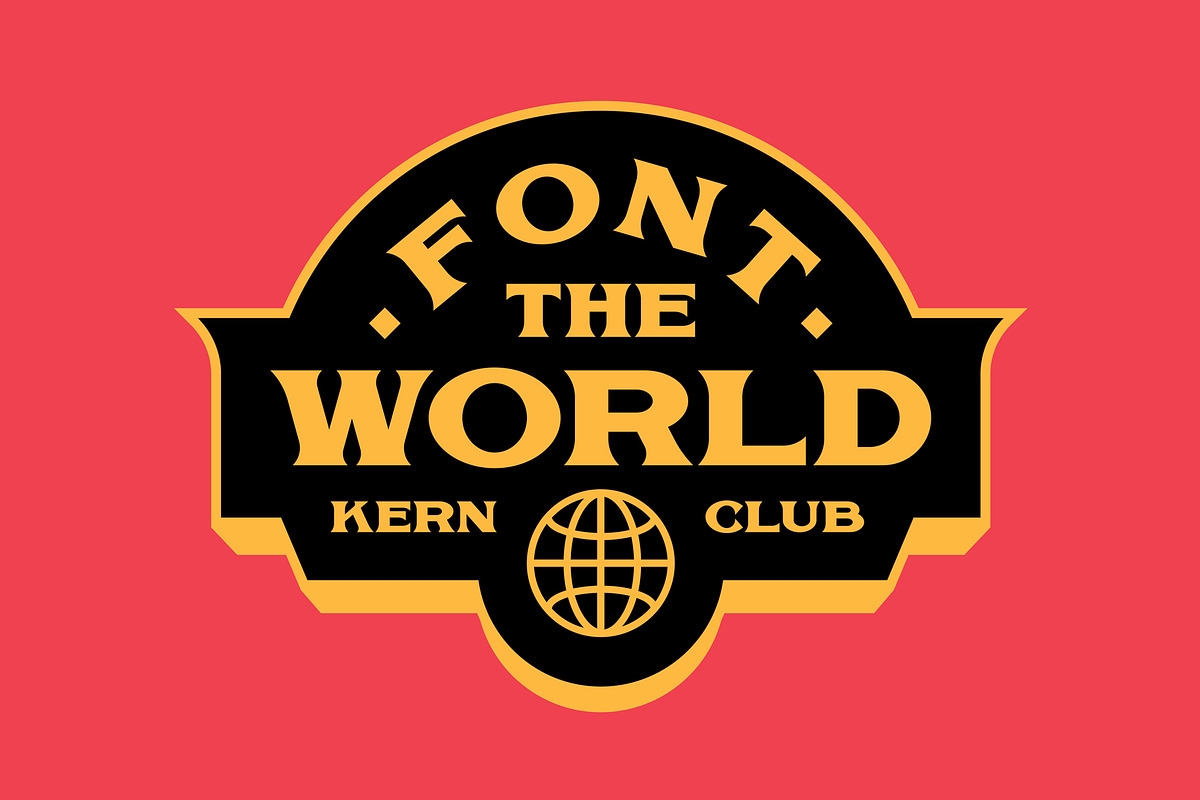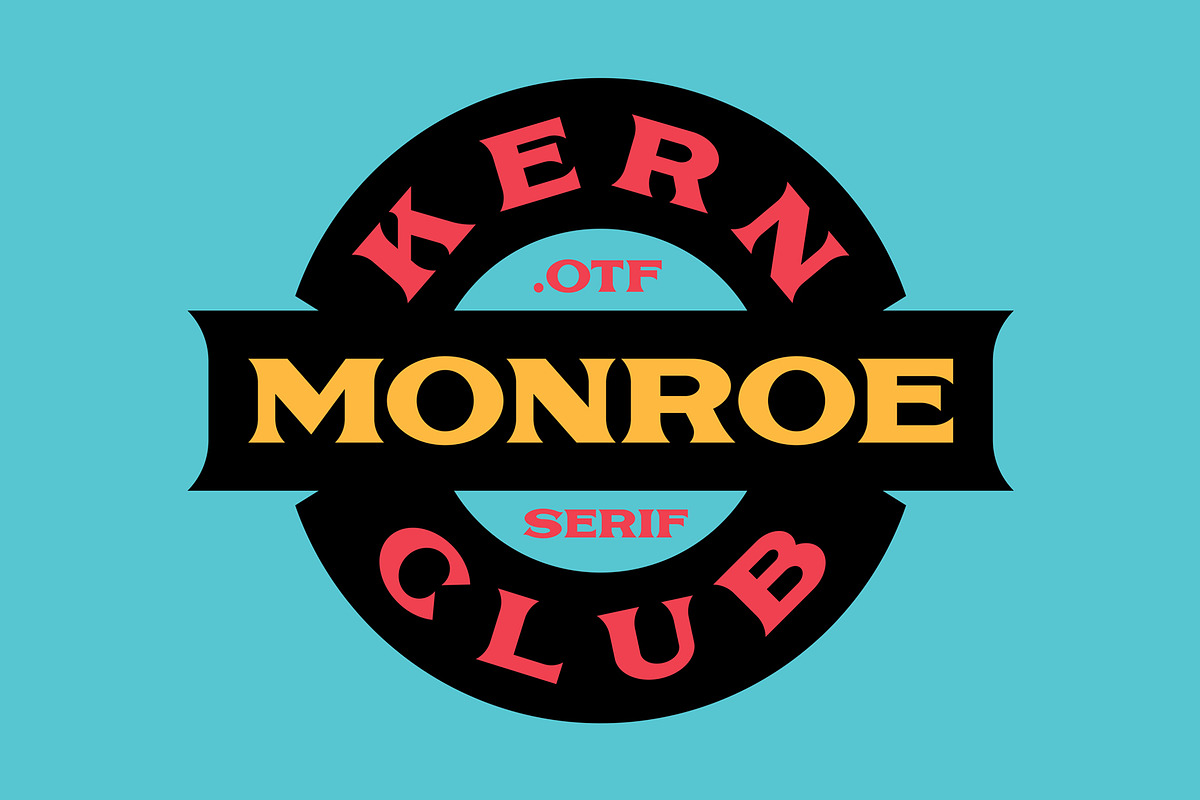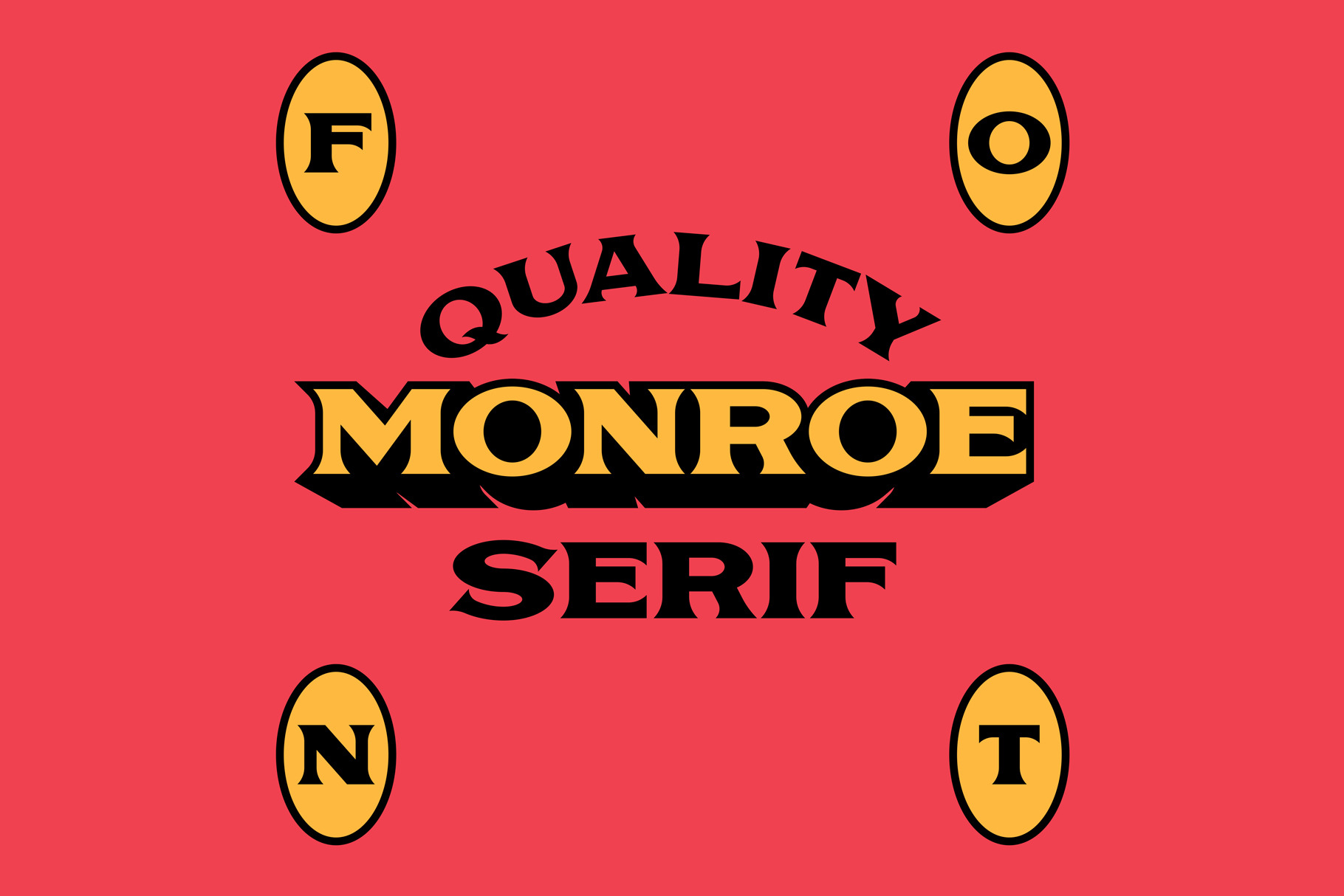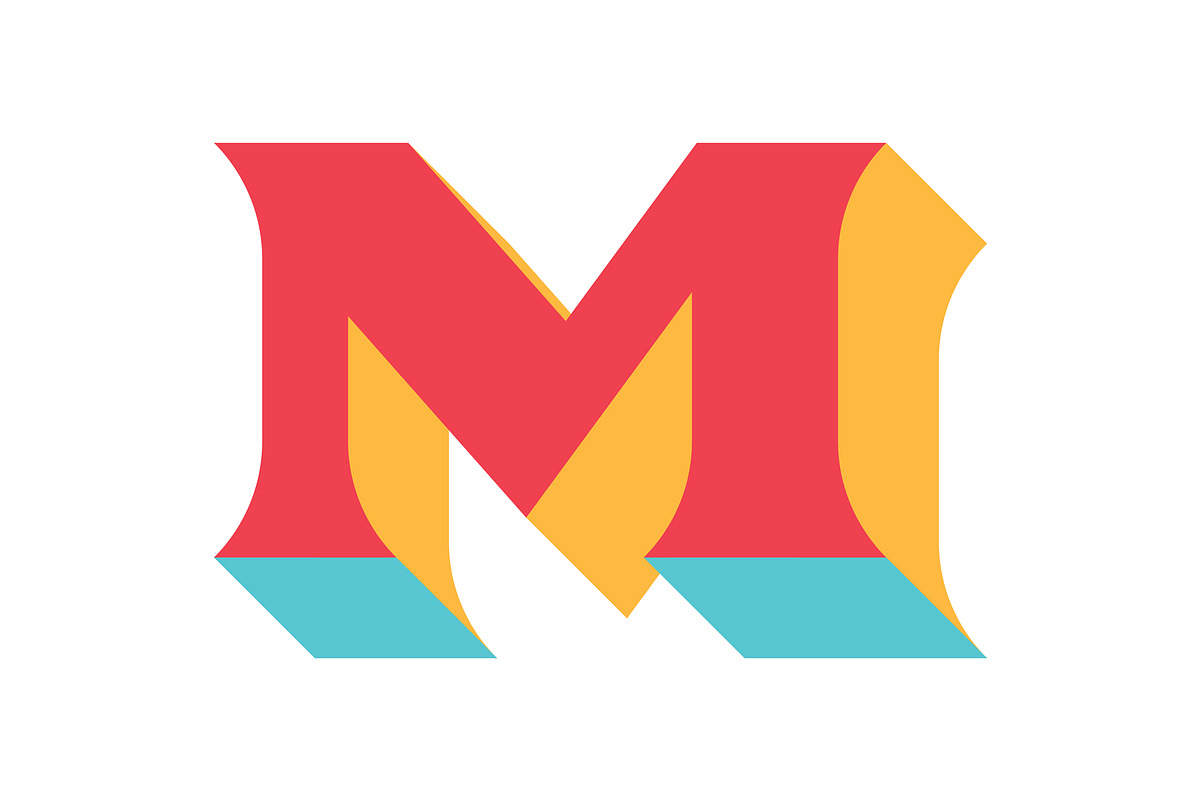
Monroe Serif Font
1950’s styled serif display font inspired by the curves of Marylin Monroe
- Uppercase Character Set A-Z
- Numerals & Simple Punctuation